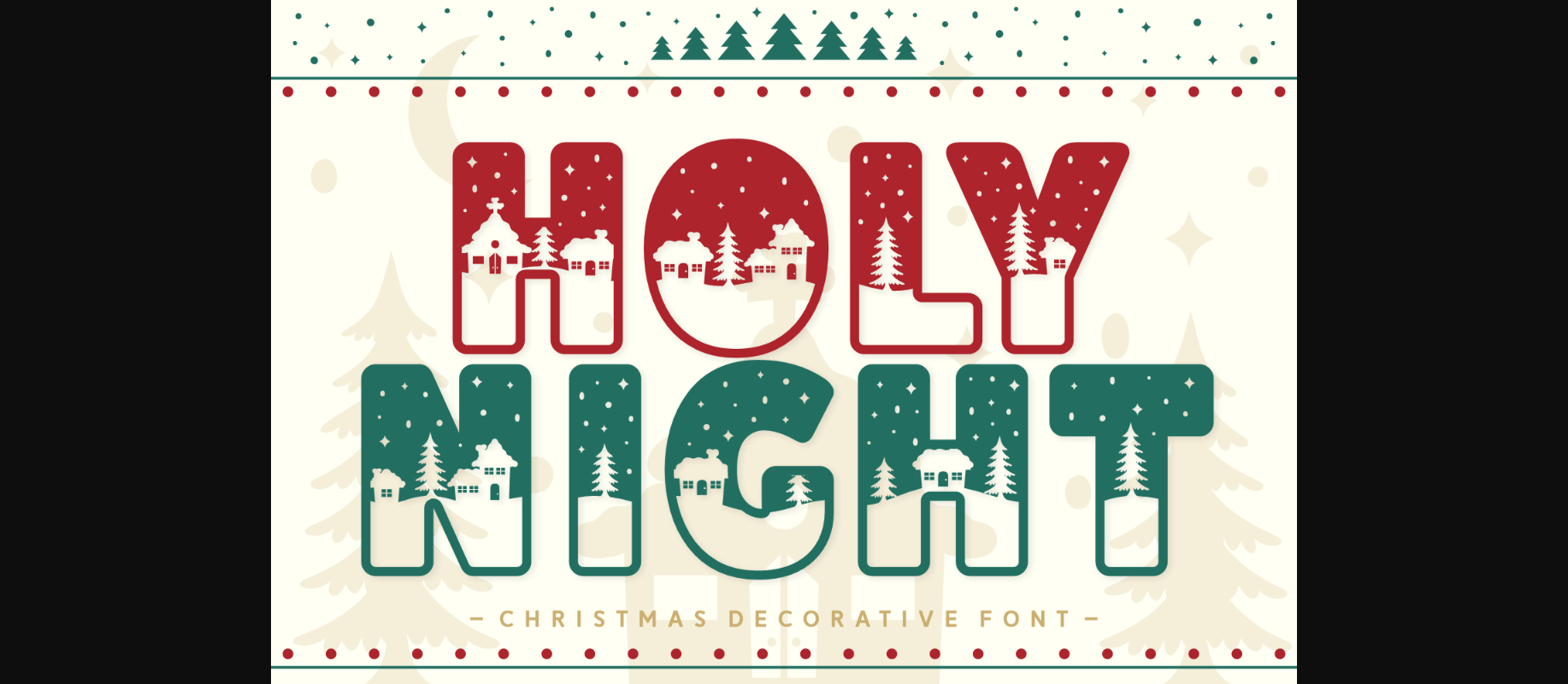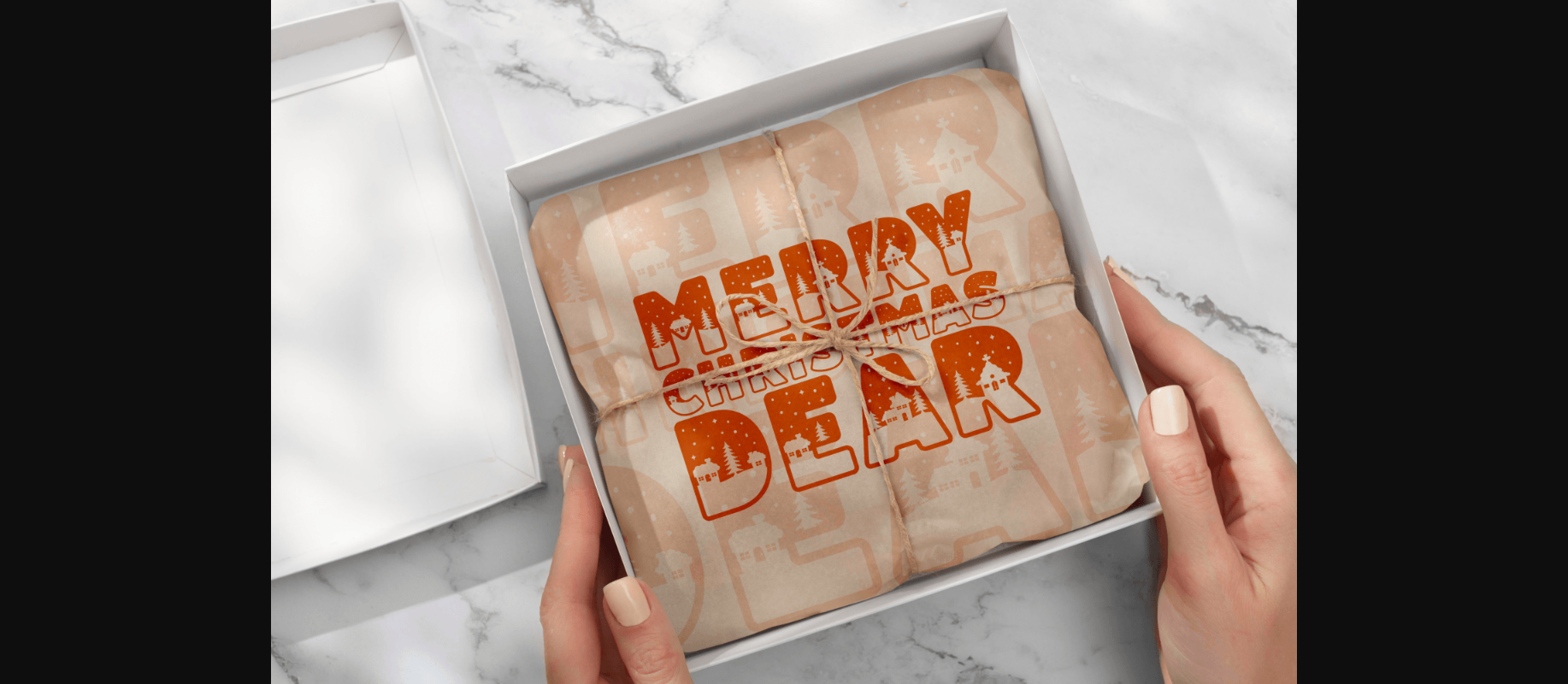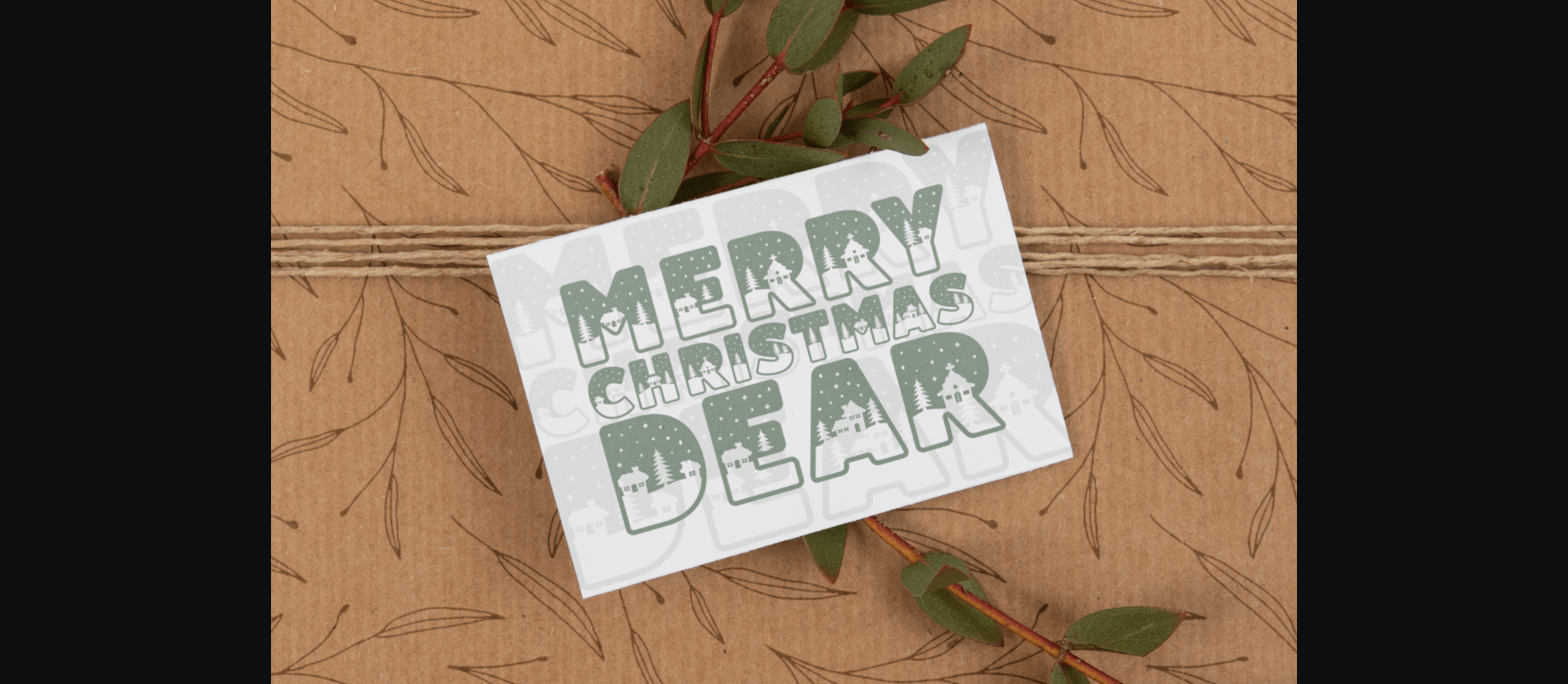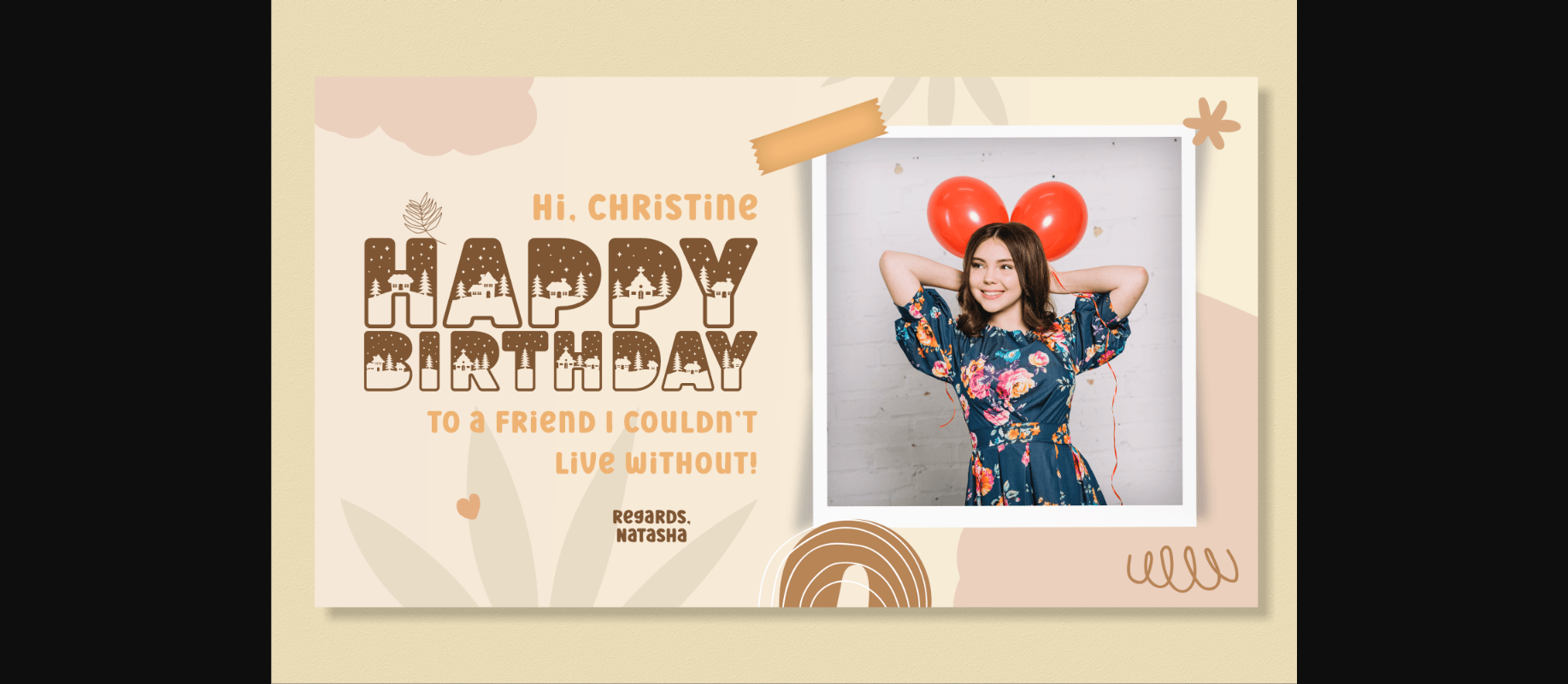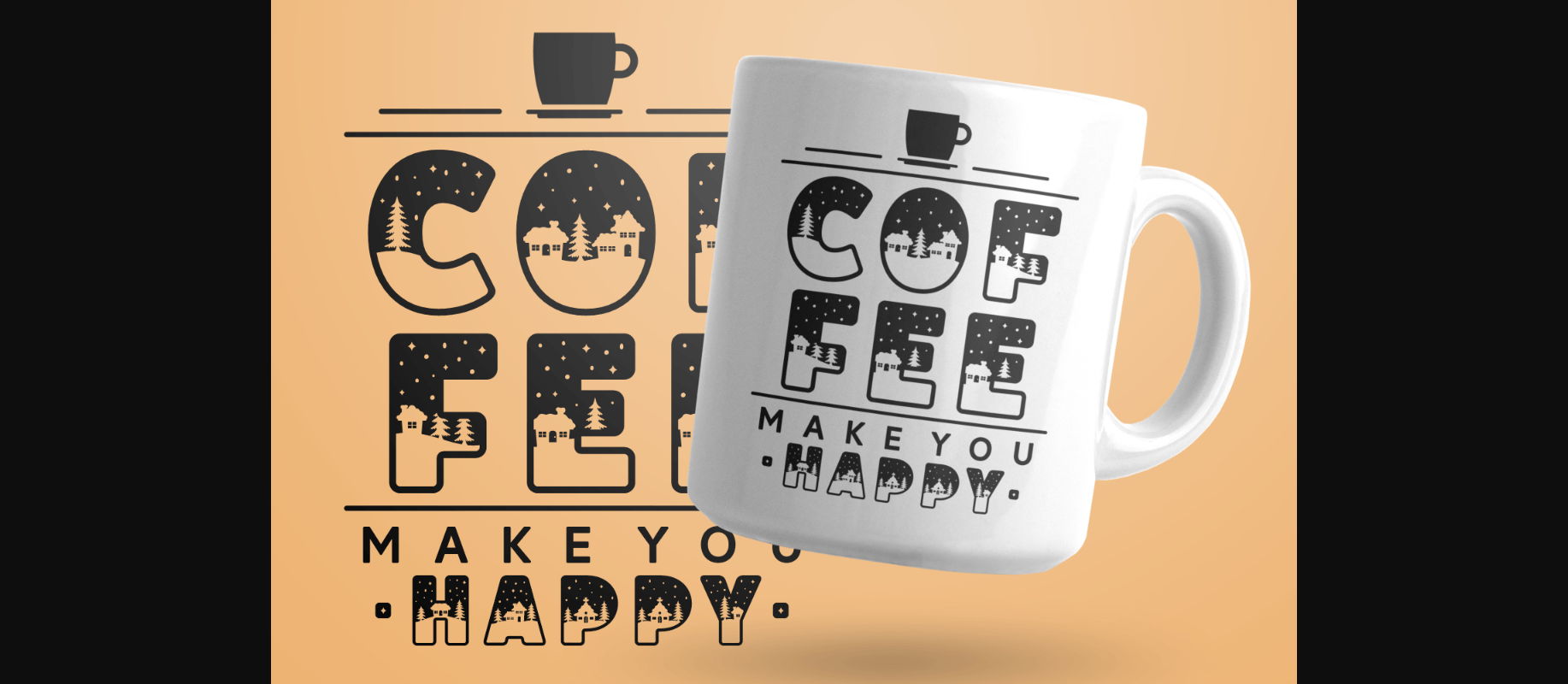
About Holy Night Font
Holy Night is a merry and bright decorative font. Its charming and festive decorations are perfect for creating outstanding Christmas designs. Add this unique font to your collection and it will surely become your favorite winter font.